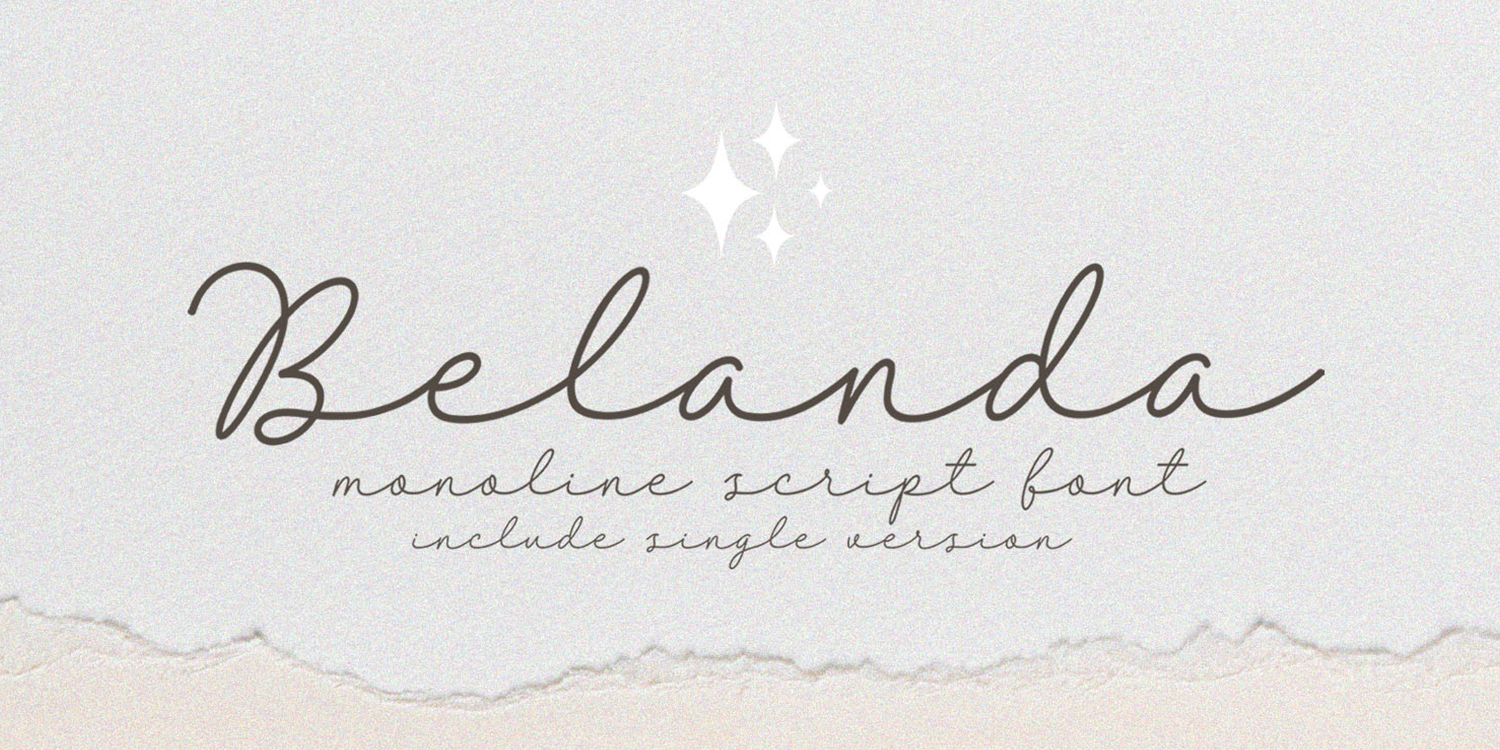
Belanda Font is perfect for elegant invitations, luxury branding, wedding stationery, fashion magazines, premium product packaging, restaurant menus, book covers, and sophisticated logo designs. This versatile typeface excels in both print and digital applications where refinement and class are essential.
What makes Belanda Font exciting is its perfect balance between modern sophistication and timeless elegance. The carefully crafted letterforms feature subtle curves and refined details that capture attention without overwhelming the design. Its exceptional readability combined with distinctive character makes it an ideal choice for designers seeking to create memorable brand identities. The font's versatility allows it to work seamlessly across various design contexts while maintaining its unique personality.
The Belanda Font family includes multiple weights and styles: Regular, Bold, Light, Medium, Italic variations, and decorative alternates. Each family member maintains the core design philosophy while offering different levels of visual impact. The comprehensive character set supports multiple languages and includes special glyphs, ligatures, and symbols that enhance creative possibilities.
Whether you're working on luxury branding projects, editorial design, or premium packaging, Belanda Font Free Download provides the sophisticated typography solution you need. Its professional quality and elegant appearance make it a valuable addition to any designer's font library, ensuring your projects stand out with refined typography that speaks to discerning audiences.